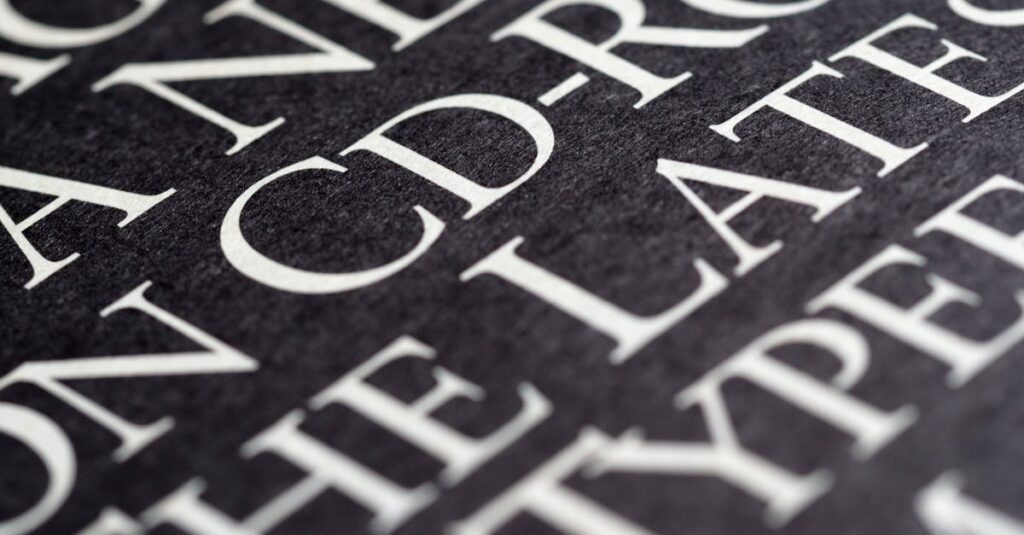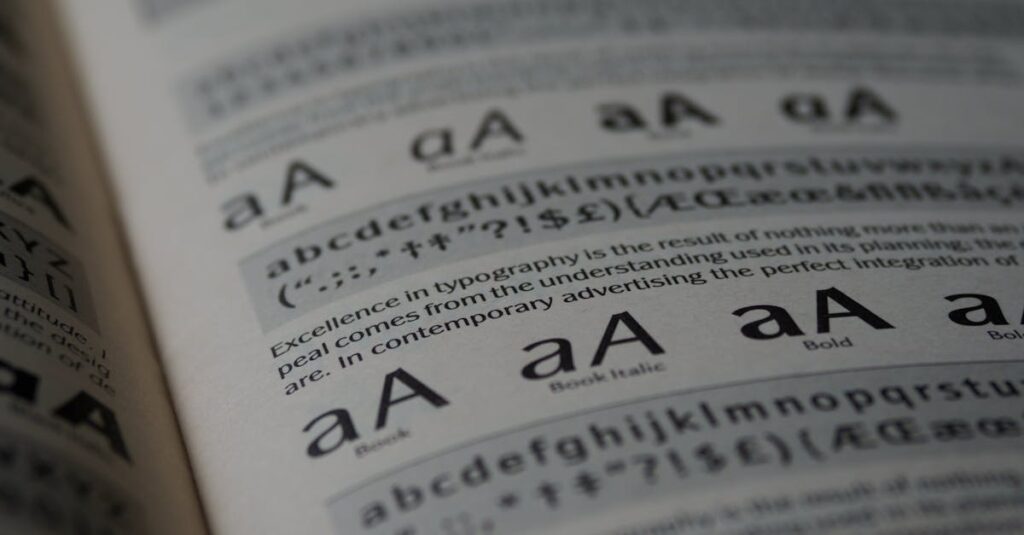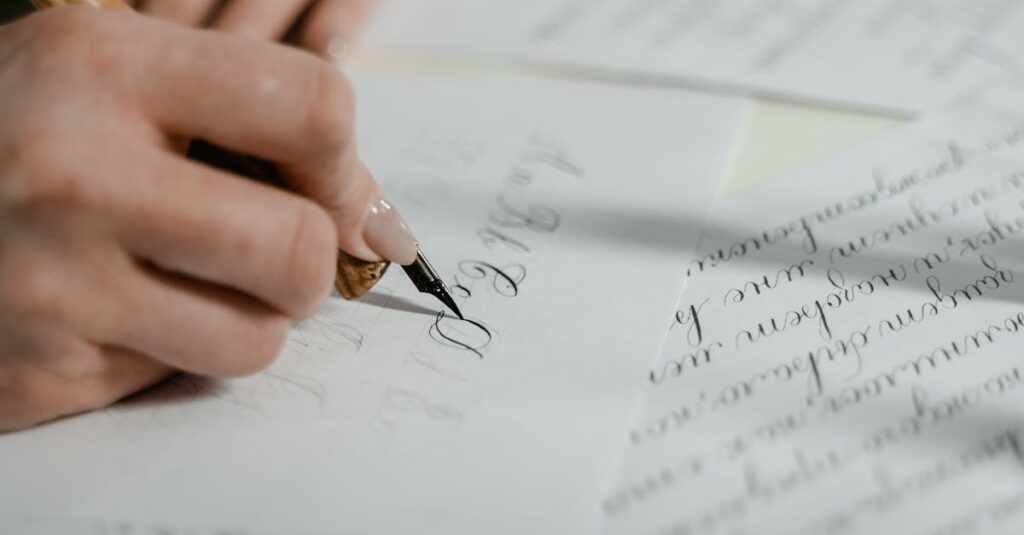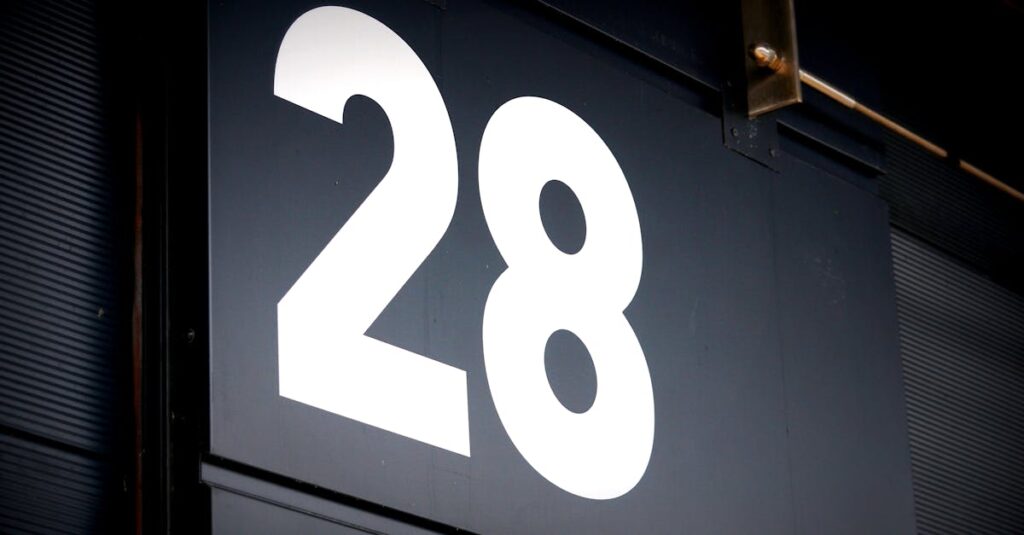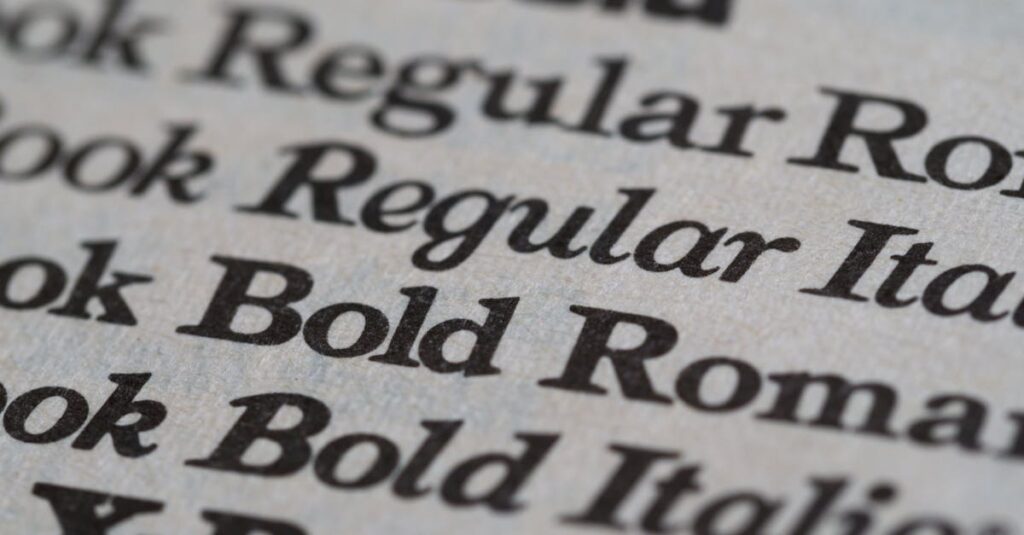
The font industry plays a significant role in the world of creative design, from branding to visual communication. In today’s digital era, fonts are not just about displaying text; they influence how a message is perceived and remembered. This article explores the latest font trends, the challenges facing the industry, and the career opportunities in font design.
Fonts as Visual Identity
The right font choice can enhance brand value and help establish a strong visual identity. From advertising to digital interfaces, fonts impact readability and appeal. For designers, selecting the right font is crucial to communicating messages effectively.
In 2024, several font trends have become popular among creative designers. Here are the main trends capturing attention:
The font industry faces challenges related to copyright, complex licensing, and competition with free fonts. Here are some key points to consider:
The font industry offers many career opportunities, especially for those interested in design and typography. With the rising demand for unique fonts, here are some steps to start a career in this field:
Technological advances offer both challenges and opportunities for the font industry. Here’s a look at some aspects of the future of fonts in the digital age:
When it comes to graphic design, selecting the right font is crucial. The correct font choice can leave a strong impression on your audience and enhance the effectiveness of your design. In this article, we will explore the most common types of fonts and the best ways to use them.
Serif fonts have small lines or strokes attached to the ends of letters, known as “serifs.” These fonts are often used for long text blocks because they make reading easier by guiding the eyes smoothly across the text.
Popular serif fonts:
When to use serif fonts? Serif fonts are typically found in printed media such as books, newspapers, and magazines. They convey a sense of tradition, formality, and sophistication.
Unlike serif fonts, sans-serif fonts don’t have the small lines at the end of their letters, giving them a more modern and clean appearance. They are highly effective for digital use.
Popular sans-serif fonts:
When to use sans-serif fonts? Sans-serif fonts are widely used in web design, apps, and branding because they are easy to read on screens and provide a sleek, contemporary look.
Script fonts mimic the look of handwriting or calligraphy, with elegant, flowing strokes. These fonts are often used to add a personal or luxurious touch to designs.
Popular script fonts:
When to use script fonts? Script fonts work well for invitations, logos, or headlines where you want to convey creativity, elegance, or femininity.
Display fonts are designed to be used at large sizes for attention-grabbing purposes, such as in posters or banners. These fonts are usually highly stylized and distinctive.
Popular display fonts:
When to use display fonts? These fonts are perfect for making bold statements in titles or headings. They’re not suitable for body text but are ideal for headlines that need to stand out.
Monospace fonts give equal space to each letter and character, resulting in a uniform, mechanical appearance. They are often used in designs with a retro or technical aesthetic.
Popular monospace fonts:
When to use monospace fonts? Monospace fonts are often used in coding or technical documents, as well as in minimalist or retro-themed designs.
Handwriting fonts imitate real handwriting and are used to create a casual, personal, or artistic feel.
Popular handwriting fonts:
When to use handwriting fonts? These fonts are perfect for personal projects like greeting cards, unique logos, or artistic designs that aim for an informal and creative tone.
Understanding the different types of fonts and their applications can greatly enhance the quality of your graphic design. The right font choice not only strengthens your message but also improves readability and aesthetics.
In the world of design, fonts do more than just convey text. They set the tone, express a brand’s identity, and add personality to every piece of content. Whether you’re working on a professional logo, a creative social media post, or an eye-catching website, the right font can make all the difference. Our unique collection of beautifully crafted fonts is here to help you elevate your designs and create something truly remarkable.